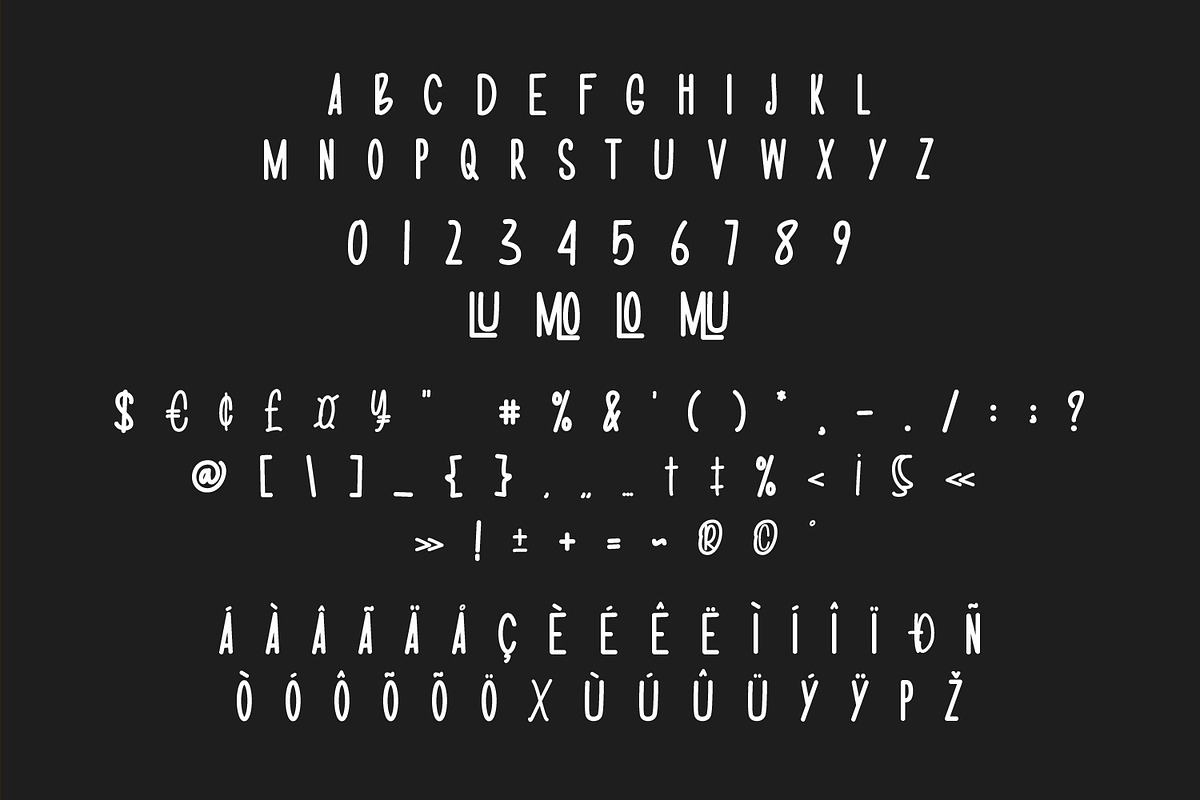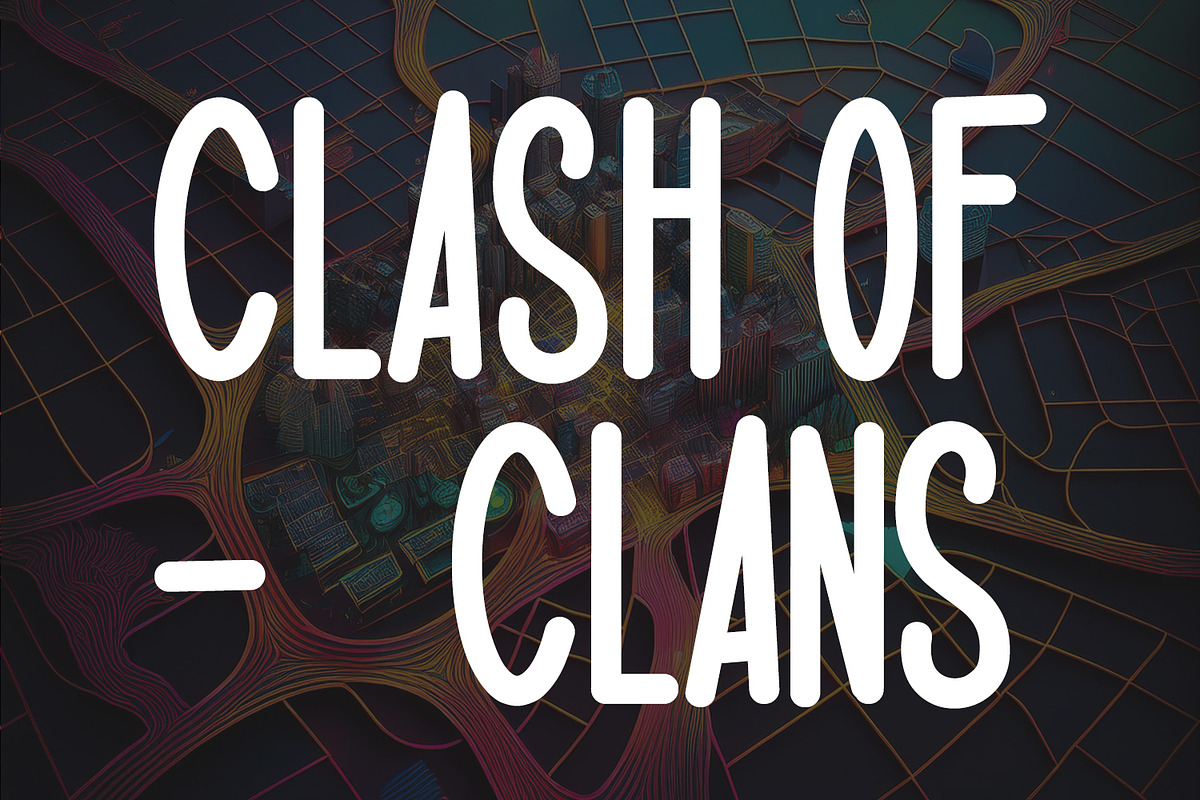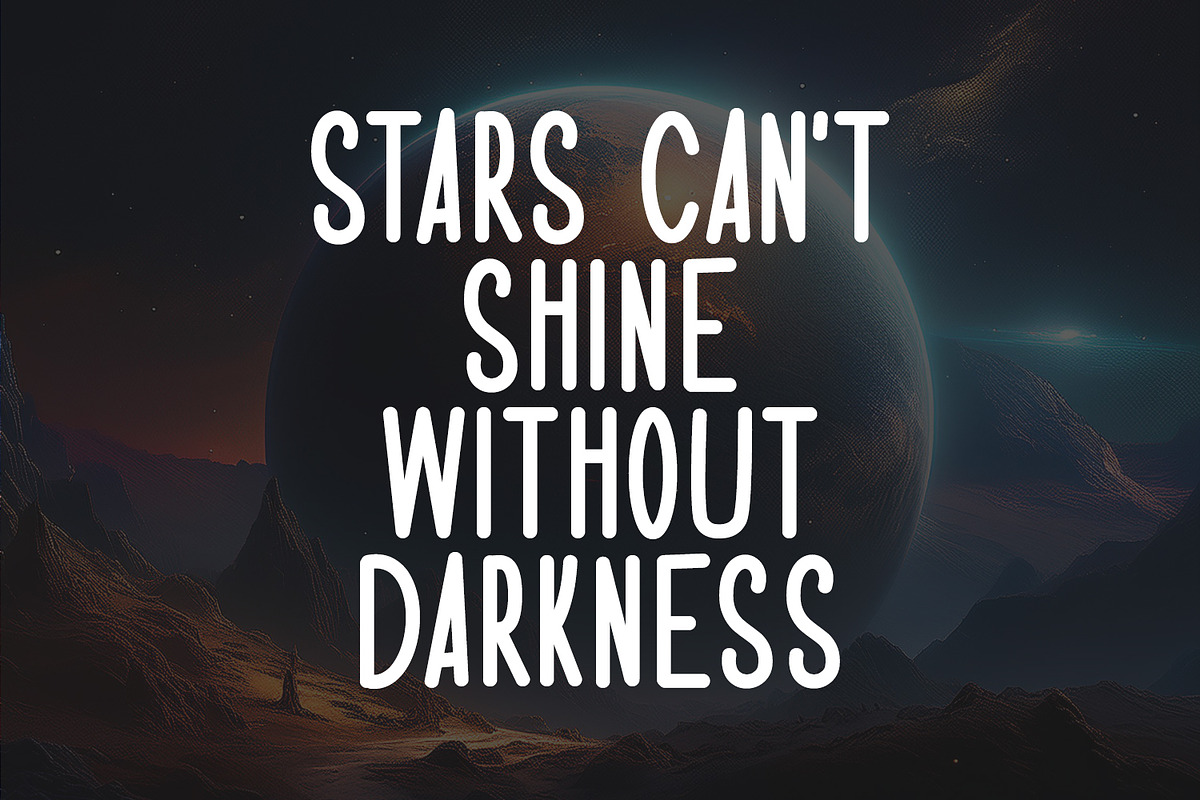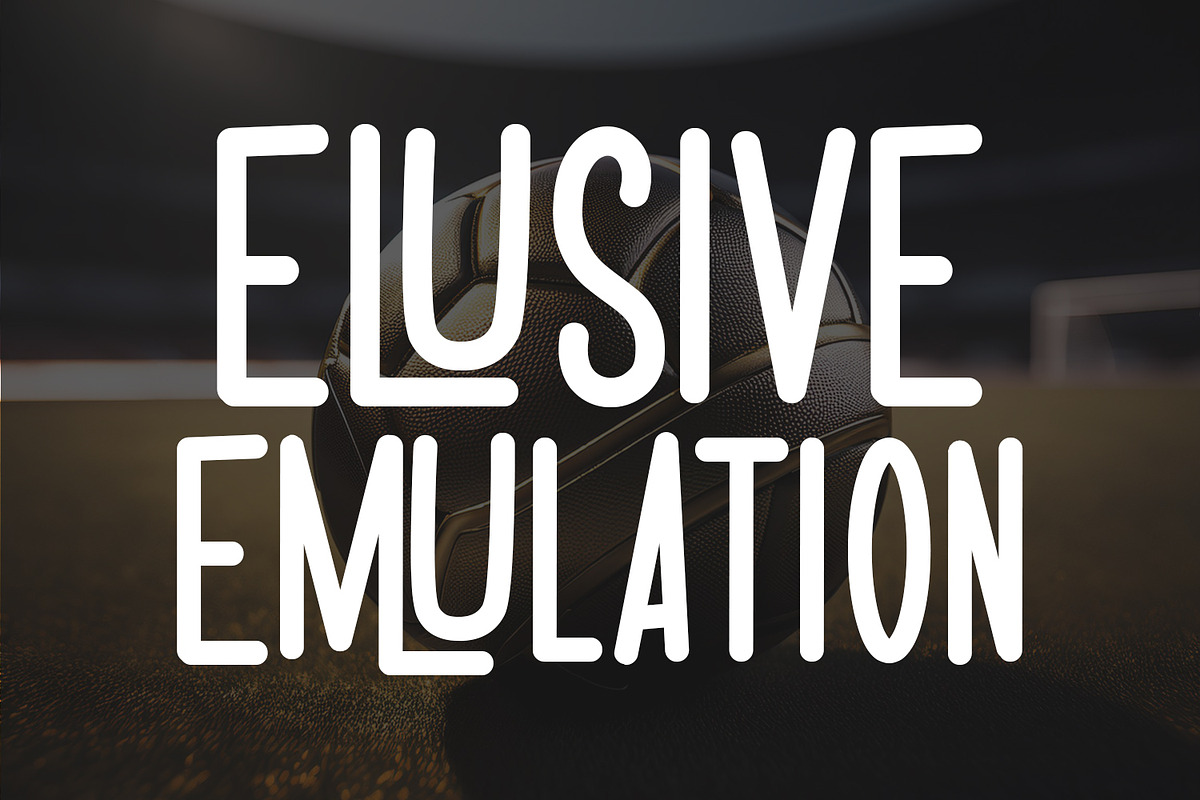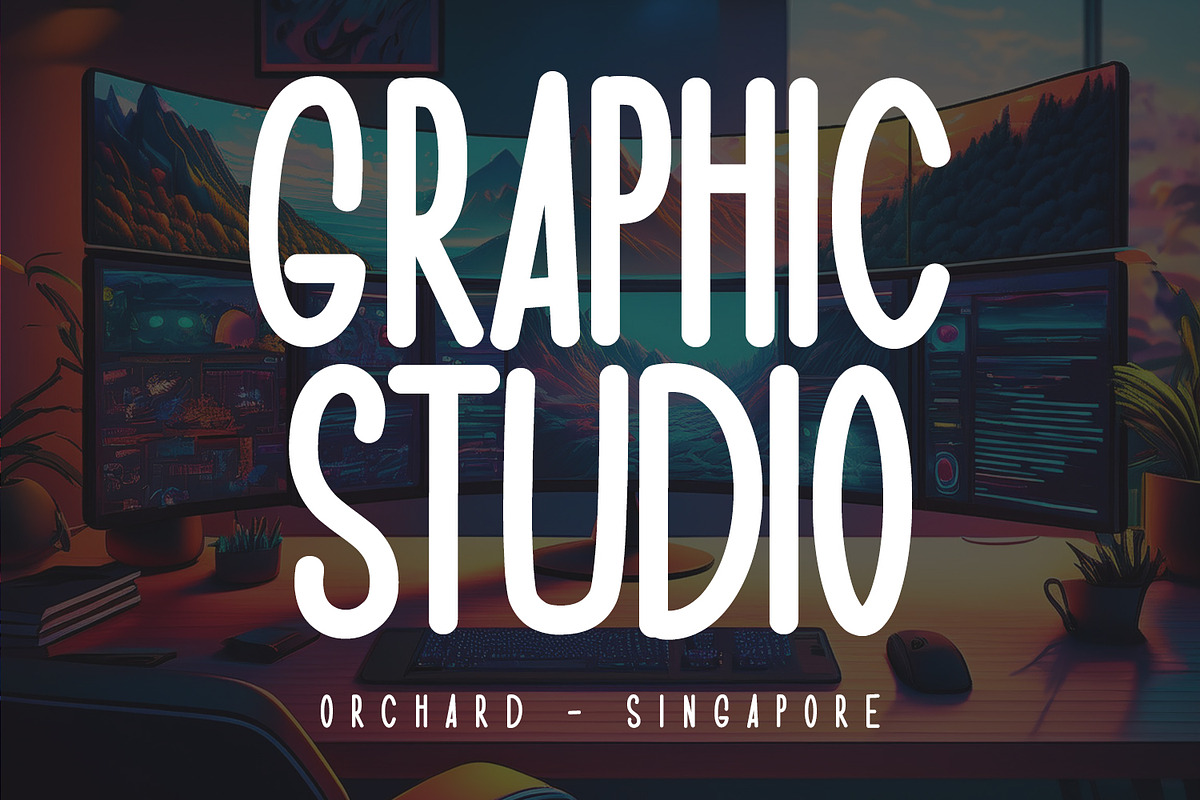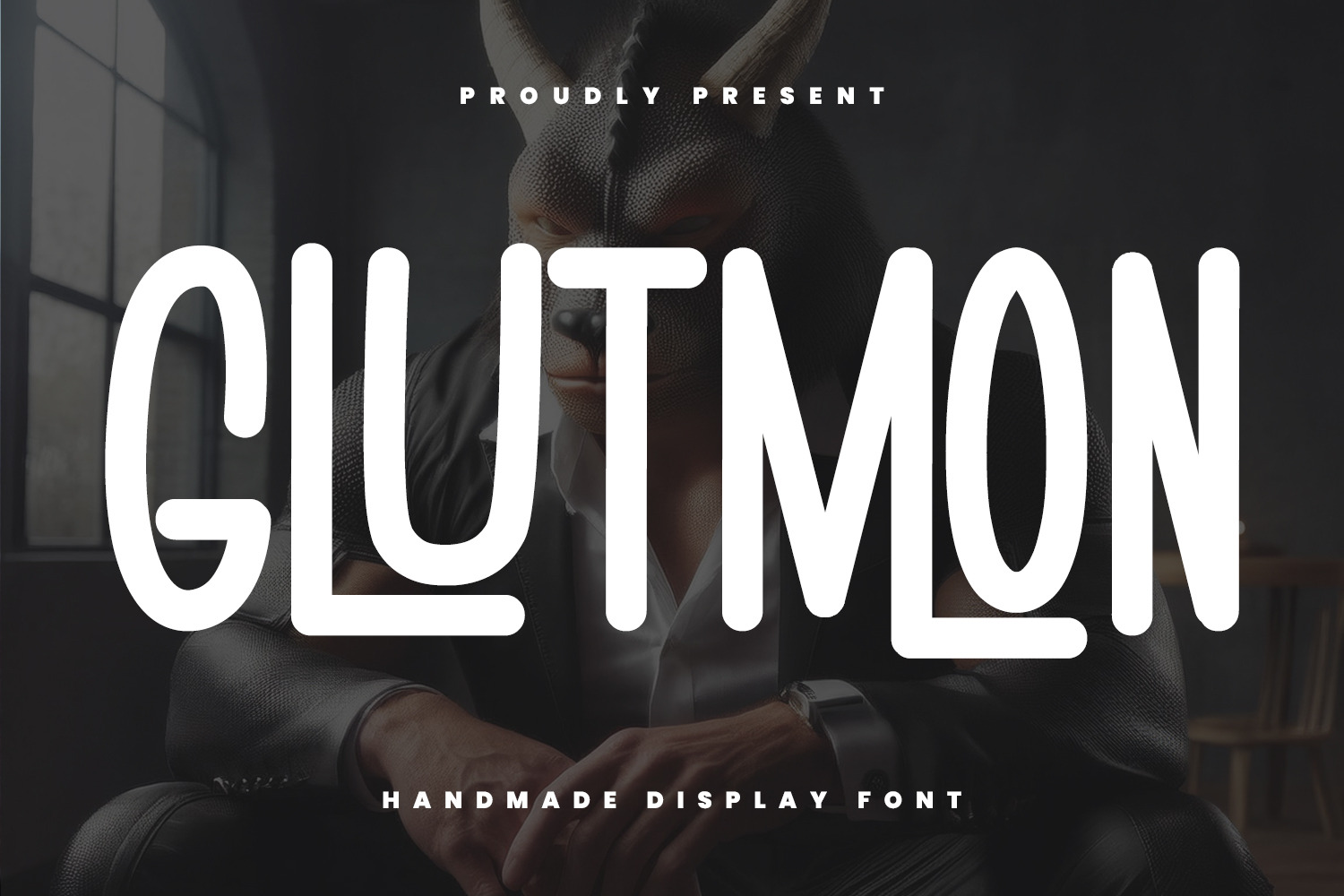
Glutmon Handmade Sans Display Font
Glutmon is a handmade modern retro font. With medium stroke, fun character with a bit of ligature. To give you an extra creative work Glutmon font support multilingual more than 100+ language. This font is good for logo design, Social media, Movie Titles, Books Titles, a short text even a long text letter and good for your secondary text font with sans or serif. Make a stunning work with Glutmon font.